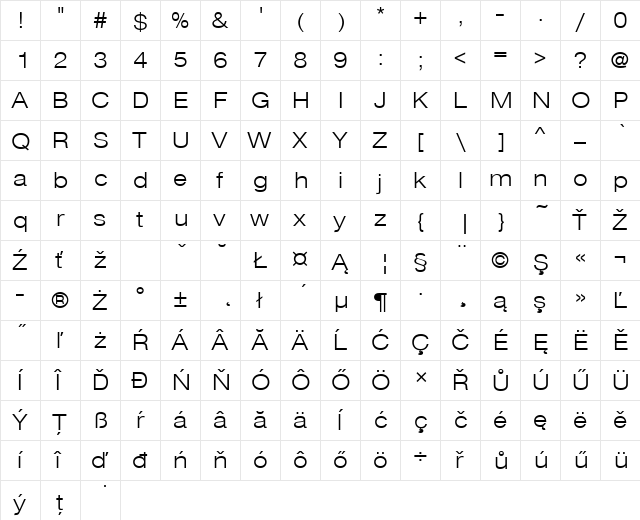
NimbusSanDEELigExt Regular
NimbusSanDEELigExt is a composed and adaptable typeface that performs quietly and consistently across a wide range of design contexts.